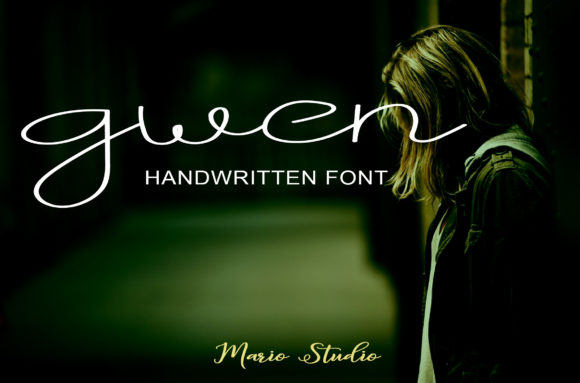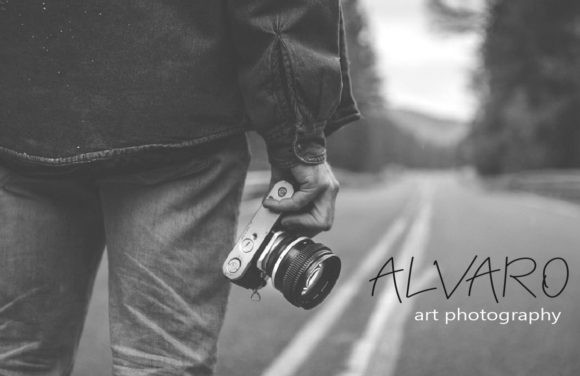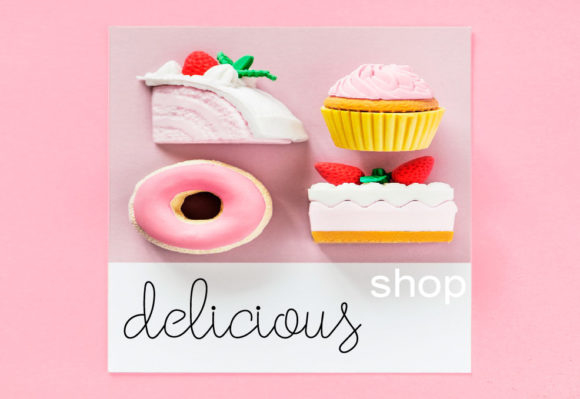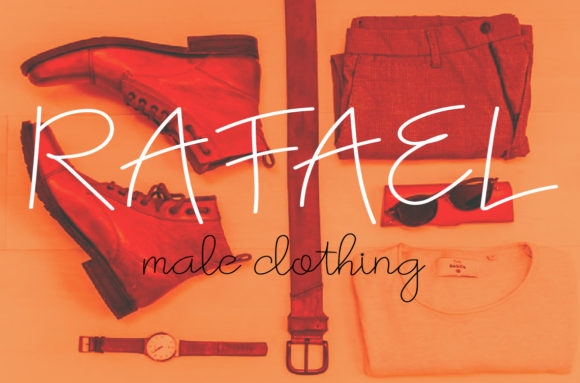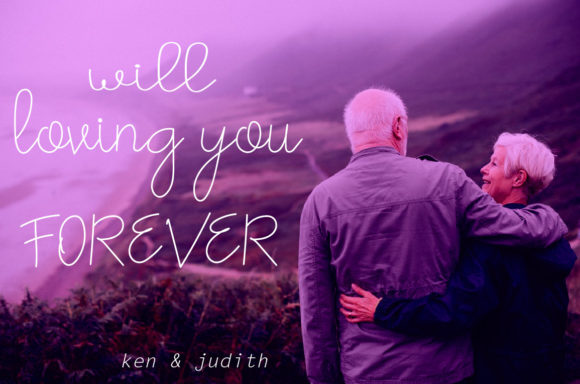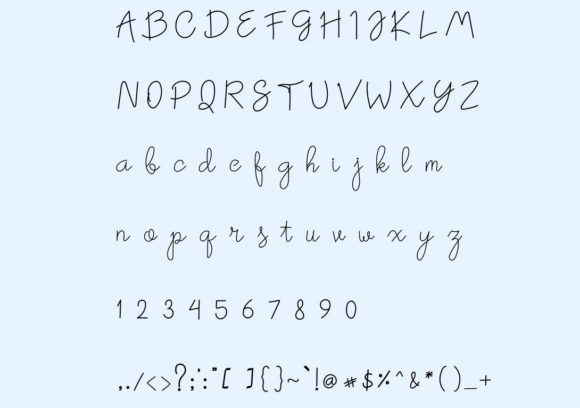
Gwen Font
About Gwen Font
The Gwen is an elegant handwritten font. It has dancing characters which will add a playful feel to your designs.
It’s suitable for logos, watermarks on photography, signatures, quotes, album covers, business cards, clothing, magazines, posters and much more!